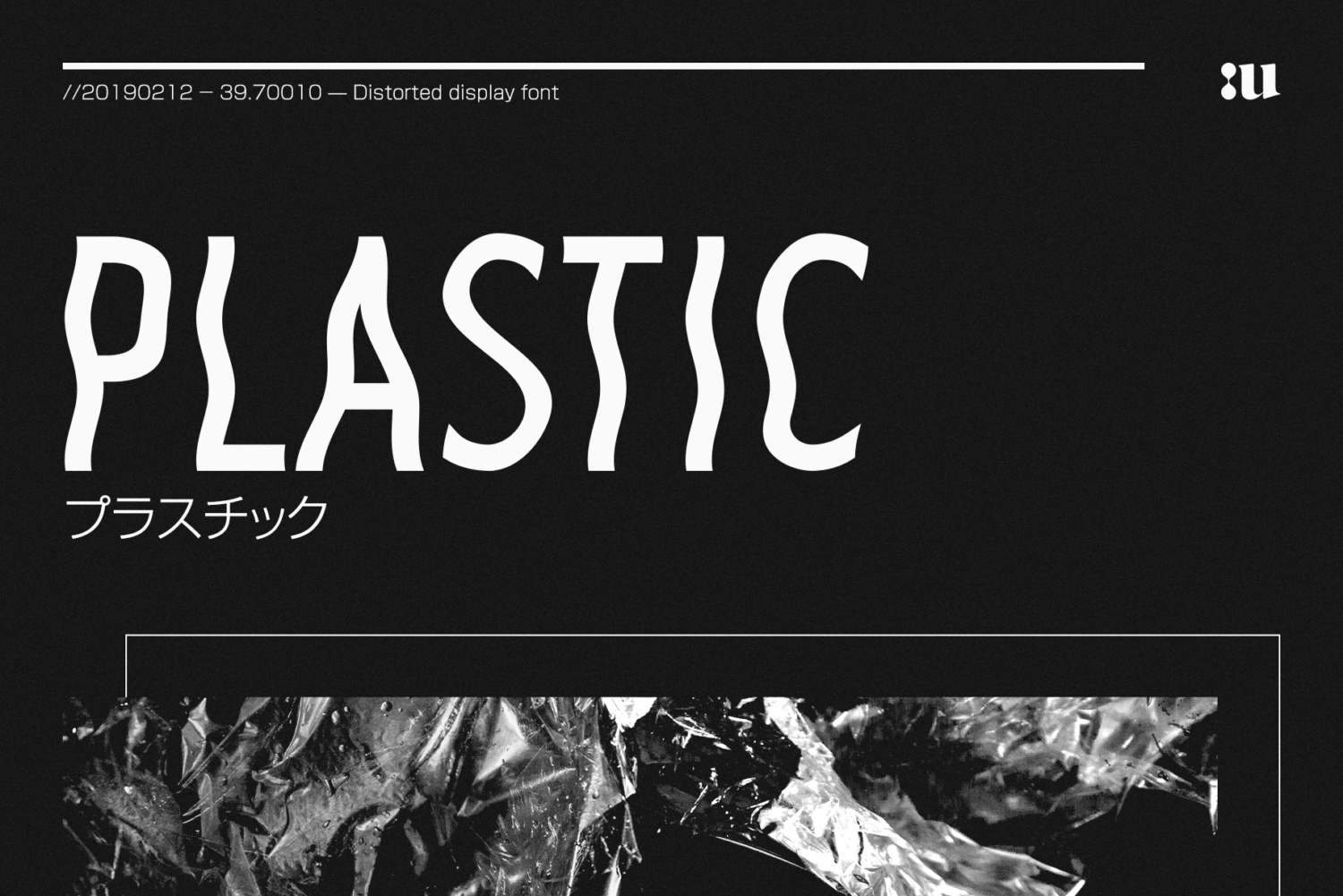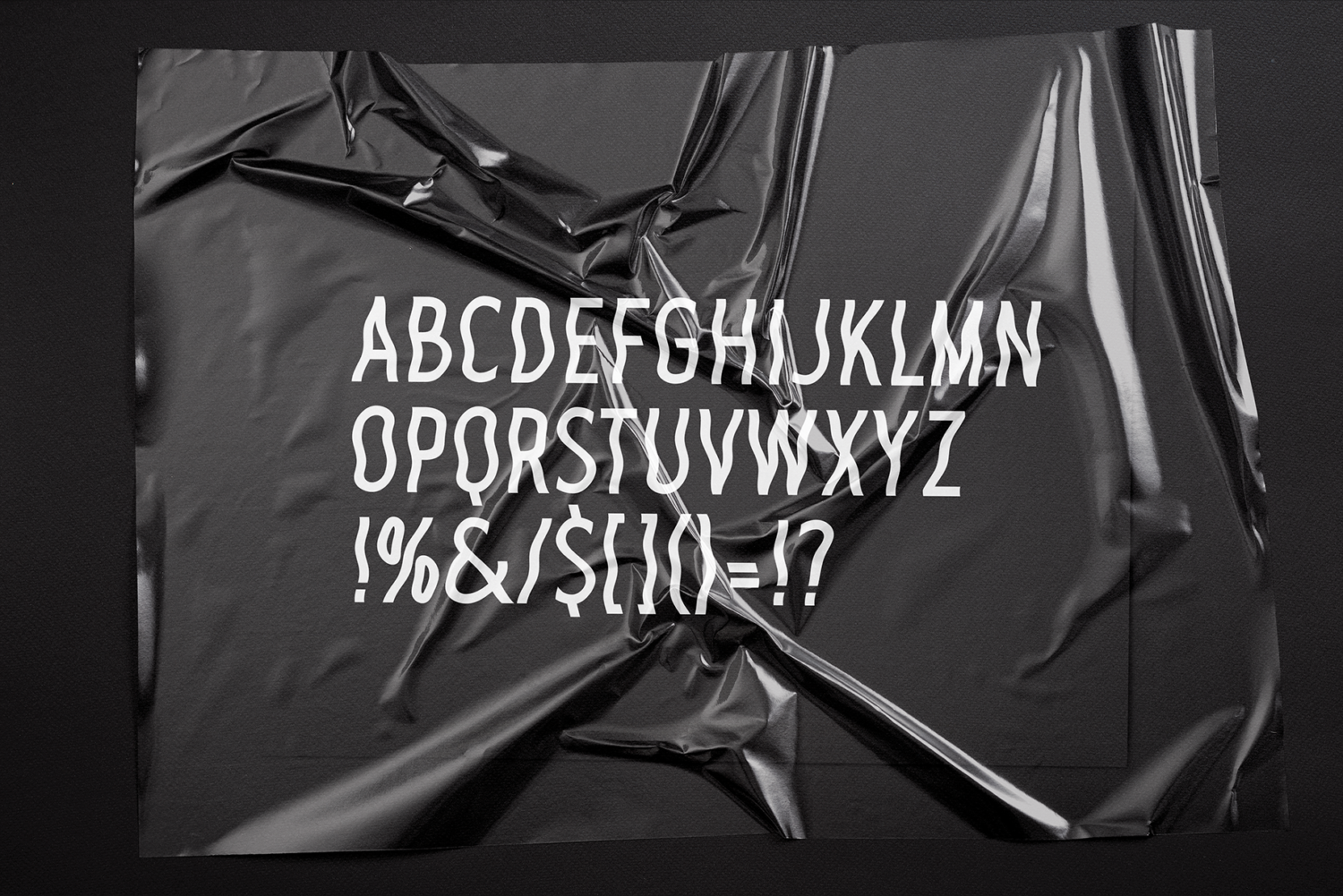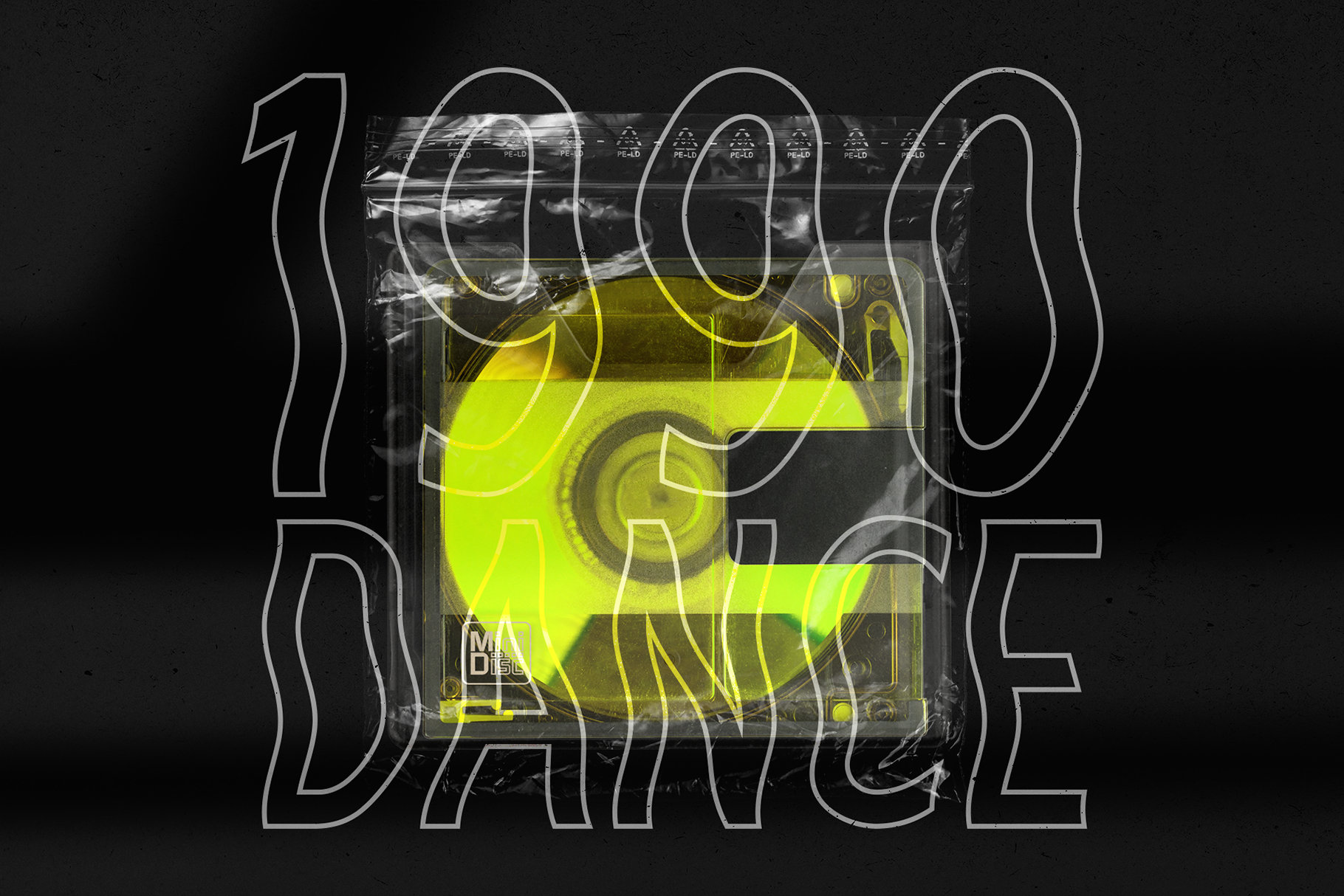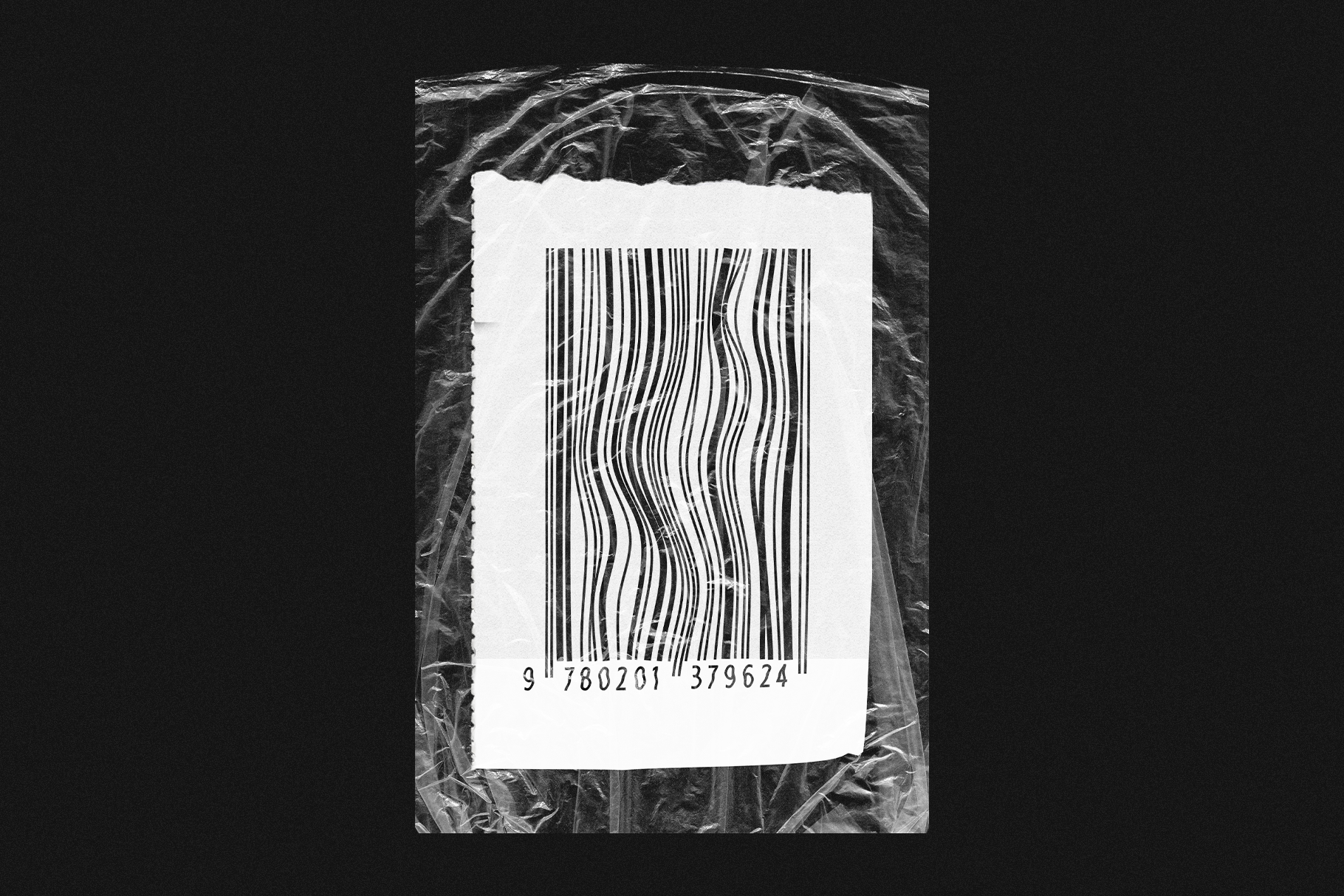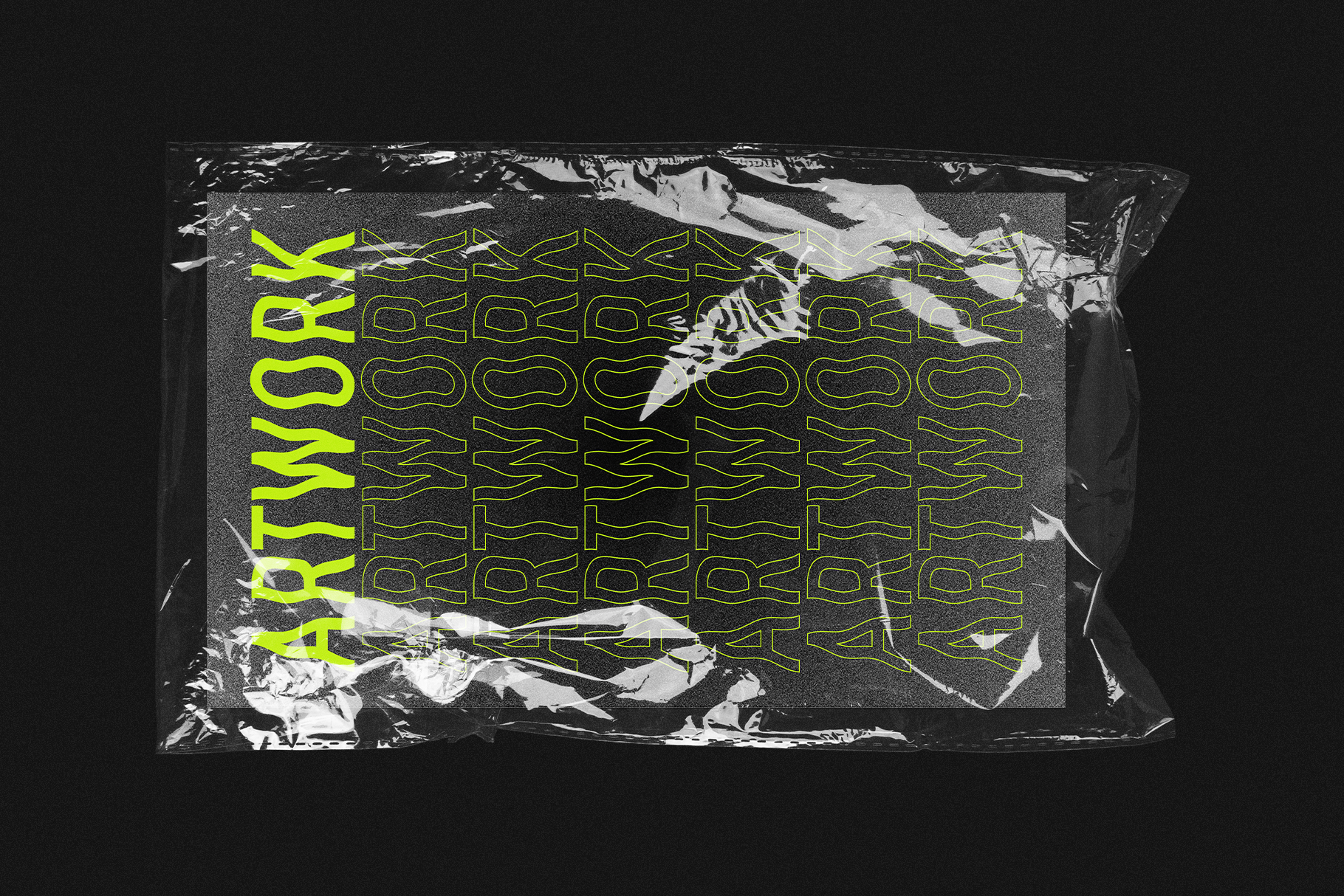
Plastic Sans Free Font
Introducing “Plastic Sans Freebie” – a contemporary distorted outlined typeface inspired by a digital glitch, designed to add a touch of creativity and abstract appeal to your next project. “Plastic” is perfect to enhance any creative purpose: headlines, titles, posters, websites, social media profiles, and even branding. This free typeface was designed by talented Unio Creative Solutions. If you like it don’t forget to check out the full version.